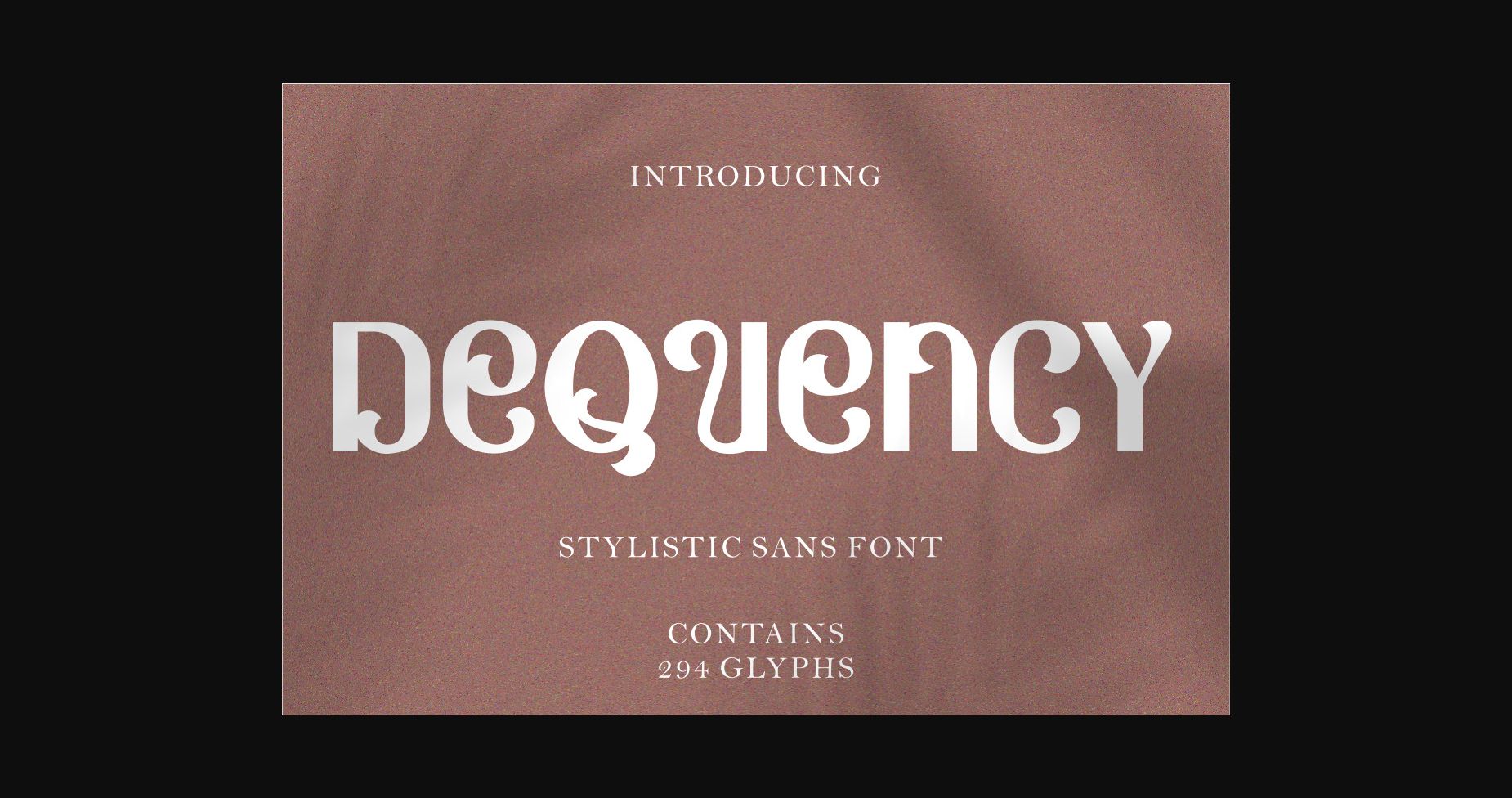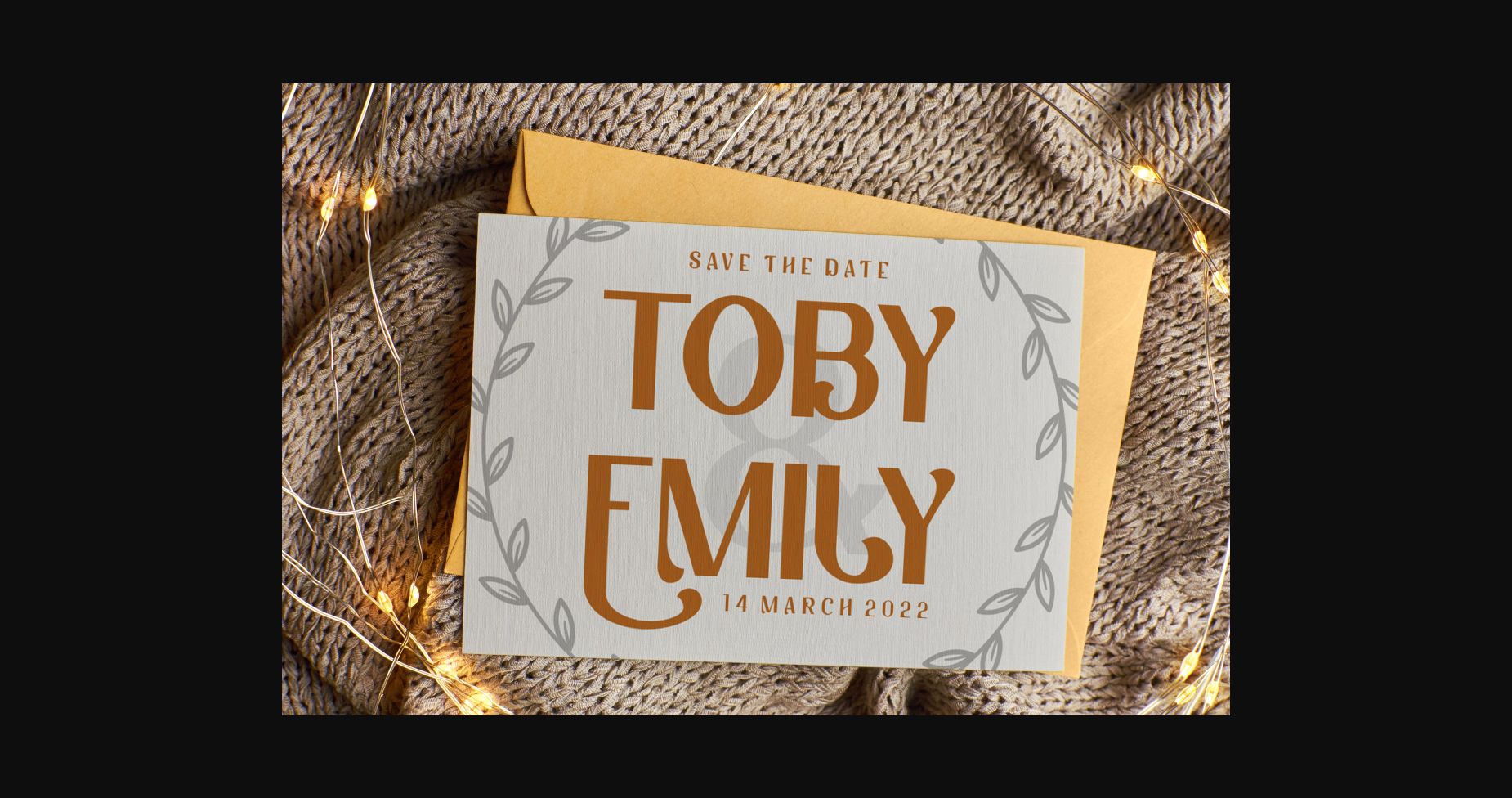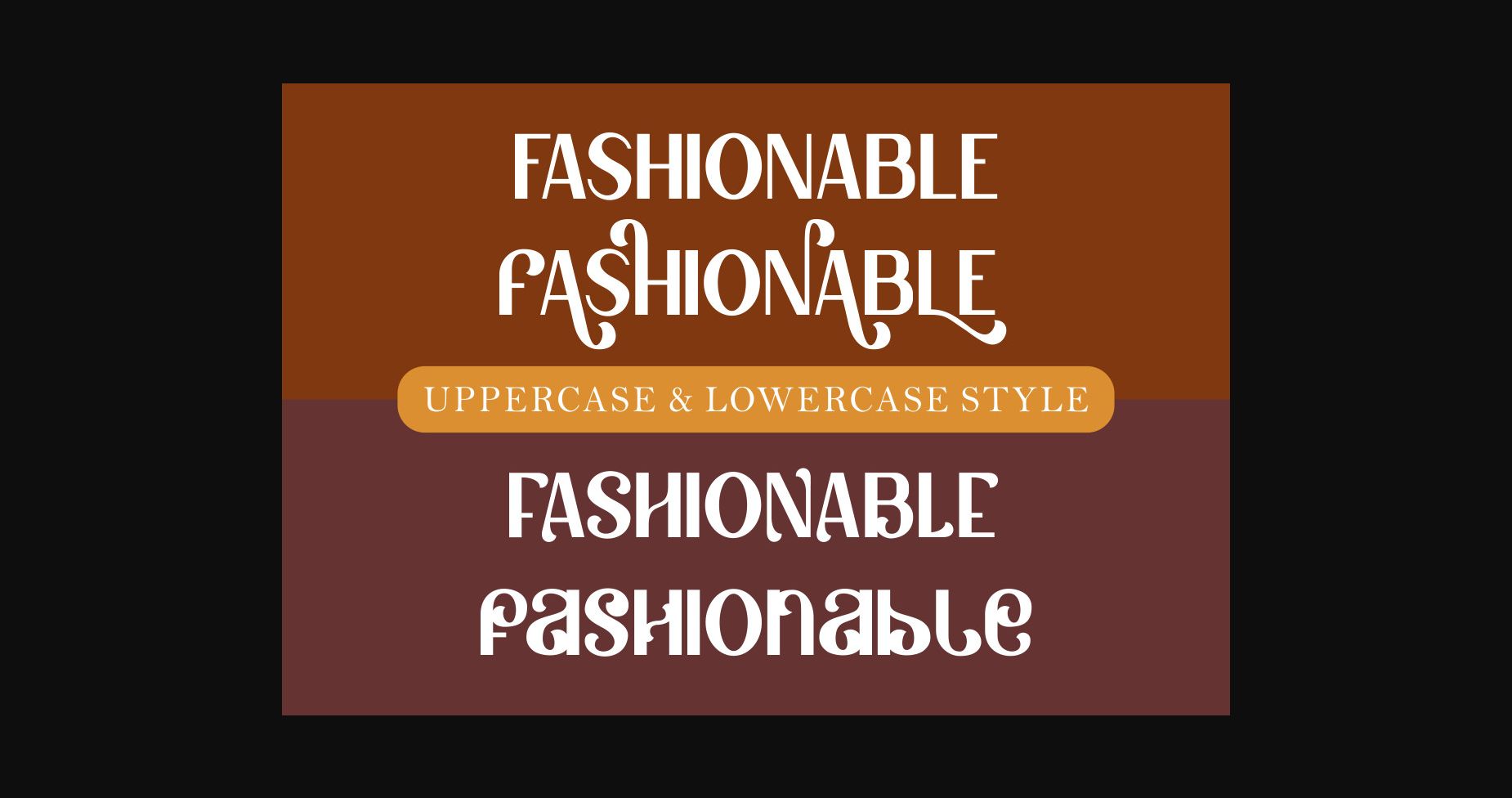
About Dequency Font
Dequency is a stylistic sans serif font, inspired by unique typography and lettering in the stylistic alphabet combined with the sans style.
Dequency is best used for Logotype, heading, cover, poster, logos, quotes, product packaging, header, merchandise, social media & greeting cards, and many more.